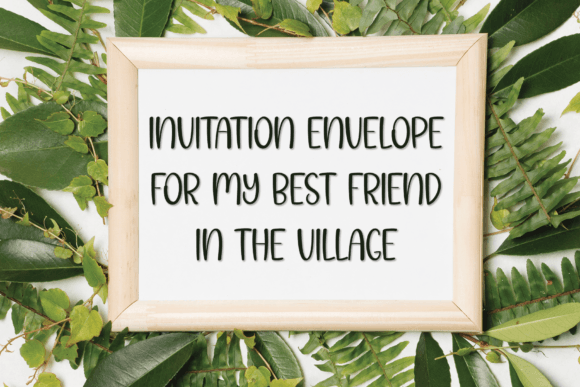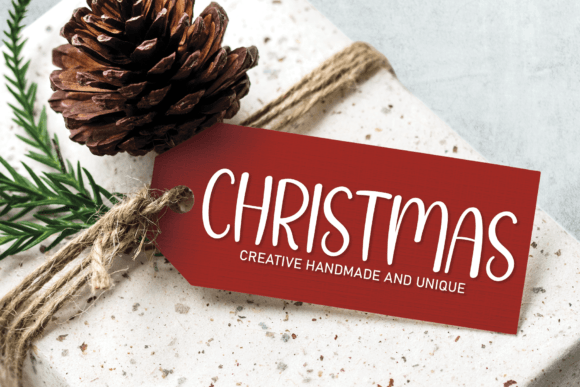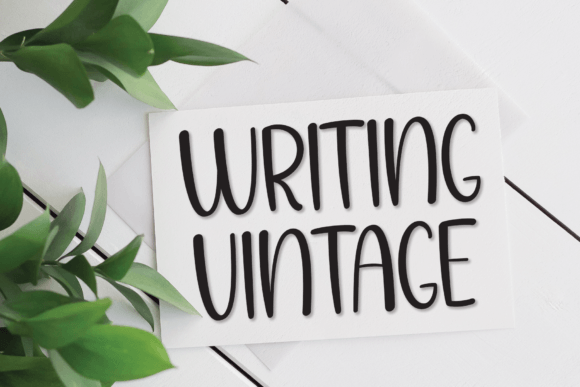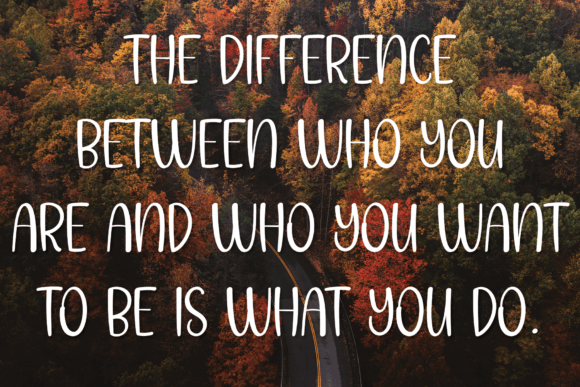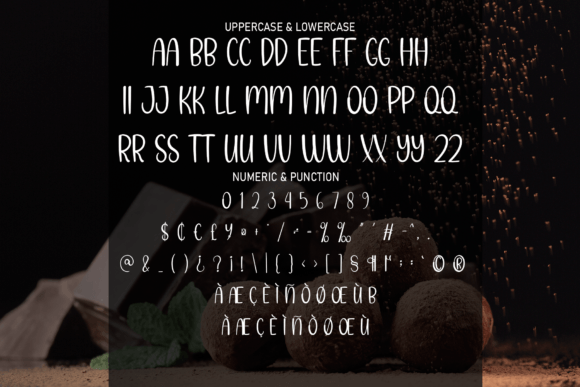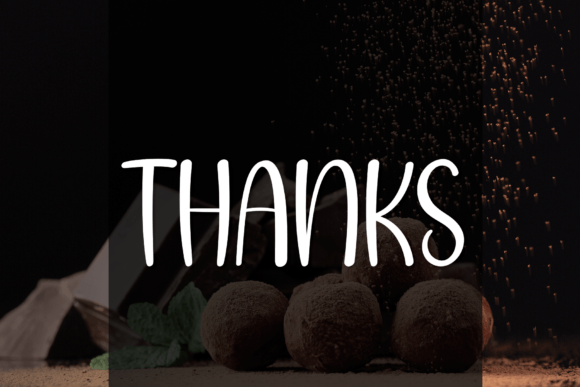
Introduction to Palm Sugar Font
Have you ever been working on a creative project and suddenly stumbled upon the perfect font that elevates your entire design? For many designers, that ‘aha’ moment is what makes all the difference between a good design and a great one. For us, that moment came when we discovered the Palm Sugar Font – a cool and casual handwritten font that has quickly become a favorite among designers and crafty enthusiasts alike.
With its unique charm and versatility, the Palm Sugar Font is perfect for a wide range of creative projects, from digital designs and presentations to crafts and greeting cards. Its high quality and transparent background make it a valuable resource for designers looking to add a personal touch to their work.
- Available in 7 font styles, each with unique characteristics and nuances
- Designed with a modern aesthetic, suitable for a wide range of design applications
Honest Review: Palm Sugar Font
I recently stumbled upon the Palm Sugar Font and I must say it’s a great addition to my design resources. As a designer, I’m always on the lookout for high-quality fonts that can elevate my creative projects.
The Palm Sugar Font is a beautiful script font with a transparent background, making it perfect for use on images or as a overlay. I love how it adds a touch of elegance and sophistication to my designs.
- ✨ Beautiful, high-quality design that’s perfect for creative projects
- ✨ Transparent background makes it versatile and easy to use
- ⚠️ Limited character set, which may not be suitable for extended text
- ⚠️ May not be suitable for use in small sizes or on low-resolution screens
Overall, I’m really impressed with the Palm Sugar Font. It’s a great design resource that’s perfect for adding a touch of elegance to my creative projects. The transparent background and high-quality design make it a versatile and easy-to-use font. While it may have some limitations, I highly recommend it to designers looking for a beautiful script font.
To get the most out of the Palm Sugar Font, use it with a high-quality image or background to create a visually appealing design. You can also experiment with different font sizes and styles to add depth and interest to your design.
The Palm Sugar Font is perfect for a variety of creative projects, including:
- Birthday party decorations and invitations
- Food and beverage branding and packaging
- Event and conference signage